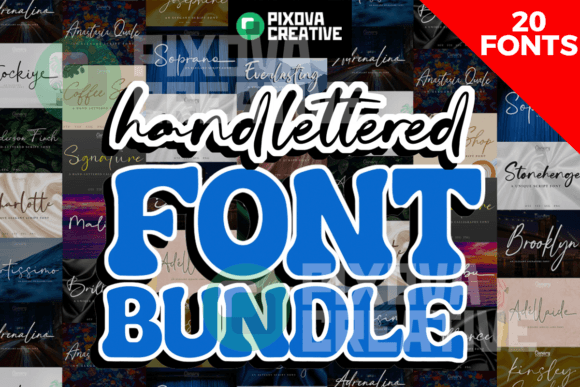
Hand-lettered 20 Brush Bundle Font
About the Hand-lettered 20 Brush Bundle Font
Explore the possibilities with Hand-lettered 20 Brush Bundle Font, a font that offers both beauty and functionality. Introducing the Hand-lettered font BUNDLE – 20 unique elegant, hand-crafted fonts for your creative projects. Suitable for promoting events, workshops, and classes with stylish and eye-catching promotional materials.
This bundle excels in display applications such as headlines, posters, and short-form marketing materials. Its handcrafted nature makes it ideal for projects requiring a touch of artisan charm, like invitations, branding for boutique businesses, or packaging for handcrafted goods. Avoid using it for body text or long paragraphs; its highly decorative style is less legible at smaller sizes.
The fonts’ elegant yet slightly playful personality pairs well with clean sans-serif fonts like Open Sans for body copy, or a geometric sans-serif for a more modern feel. For a luxurious effect, consider pairing with a classic serif like Garamond. Avoid pairing with other heavily stylized script fonts, as this could lead to visual overload.
The overall mood is sophisticated yet approachable, conveying a sense of handcrafted quality and attention to detail. It is best suited for brands aiming for a premium, yet friendly image.
Hand-lettered 20 Brush Bundle Font Example